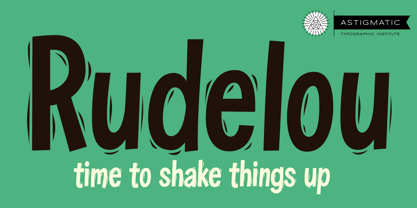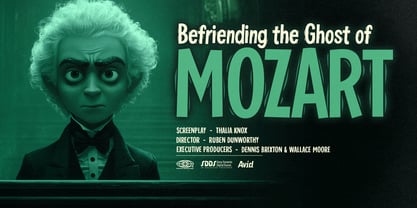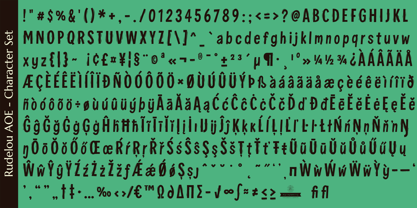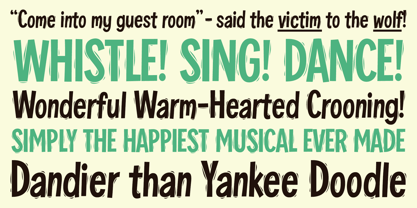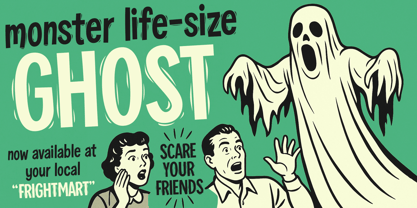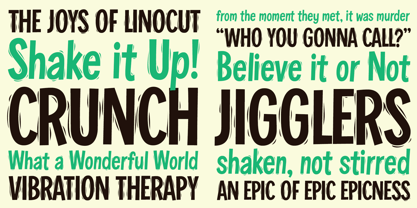
Rudelou AOE
by Astigmatic
The Rudelou AOE Font Family was designed by Brian J. Bonislawsky and published by Astigmatic. Rudelou AOE contains 1 styles.
Rudelou AOE is an animated sans-serif typeface jacked up on caffiene and ready to go! It's a cleaner spin on an older font I had created called Saratoga Slim, which had a slight western flavor. Animated lettering styles are just something I gravitate towards, and Rudelou has a slight swagger, woodcut styled etching aroudn the letters, and a cleanly readable sans styling.
I had a lot of fun revisiting and totally riffing off an older font of mine, and I hope you like this new and completely different design.